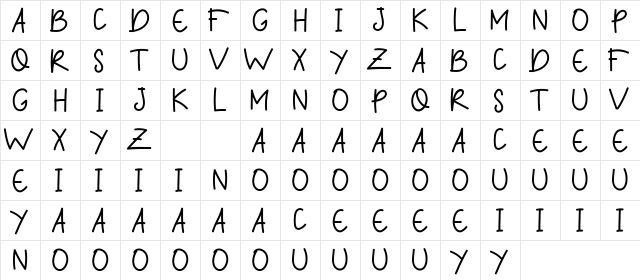
Siblings Love Demo Sans
| Style | Sans |
| Foundry | Edric Studio |
| Designer | Yasri Ainun N & Sarah Suci P |
Design Context for Siblings Love Demo Typeface
Siblings Love Demo takes a measured approach to typography — its balanced proportions and neutral character make it a reliable workhorse for both digital and print work.